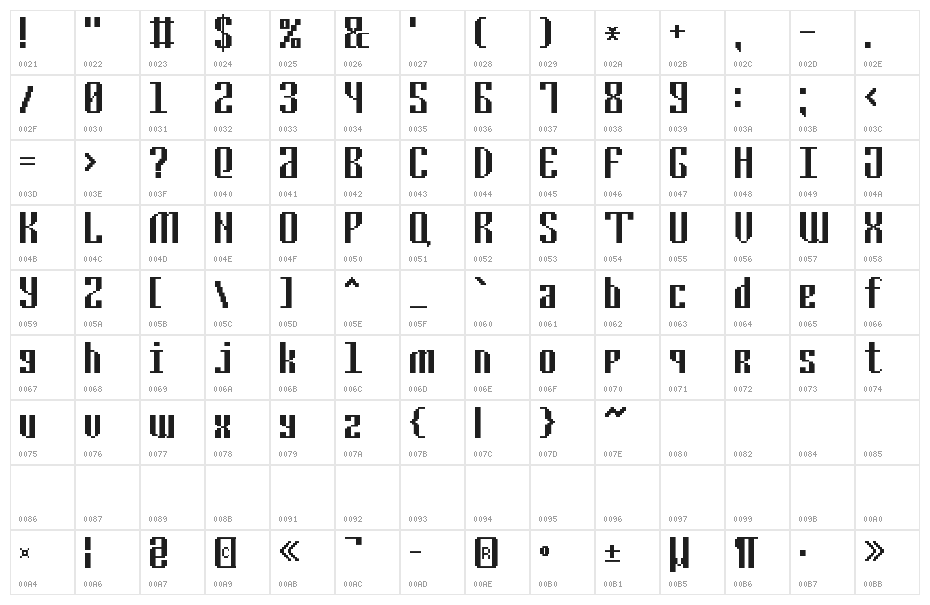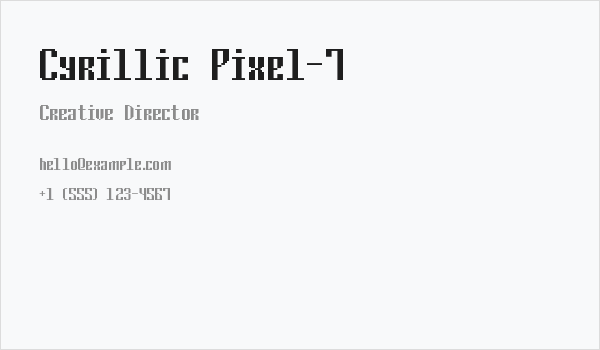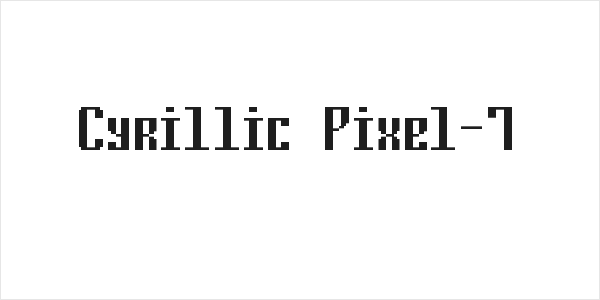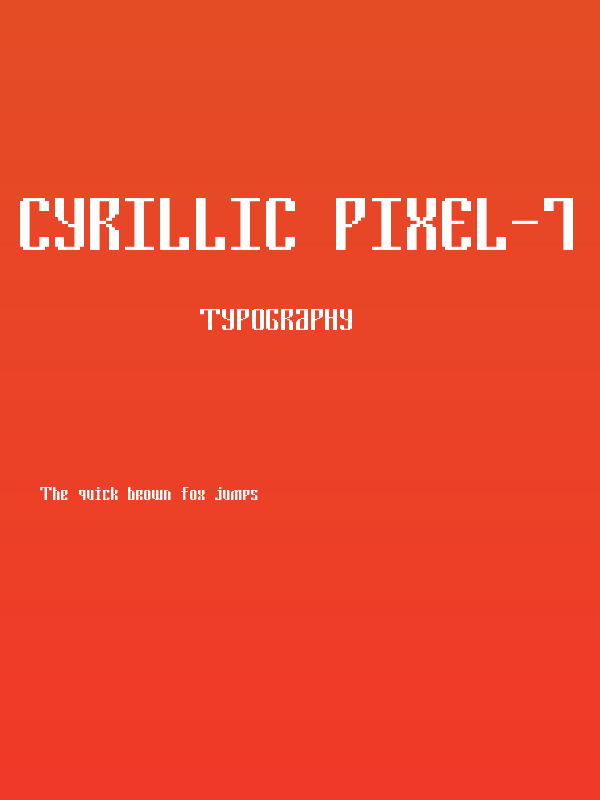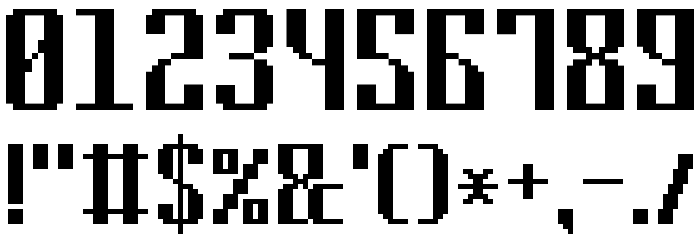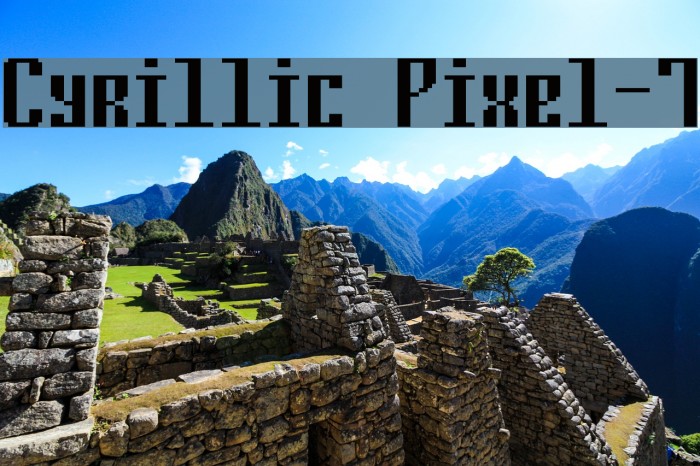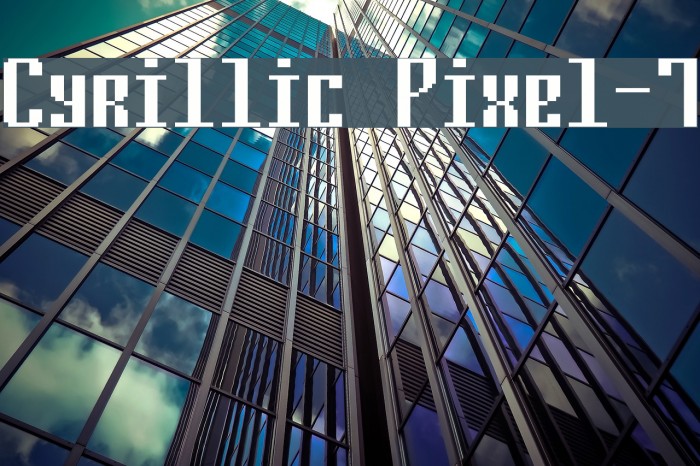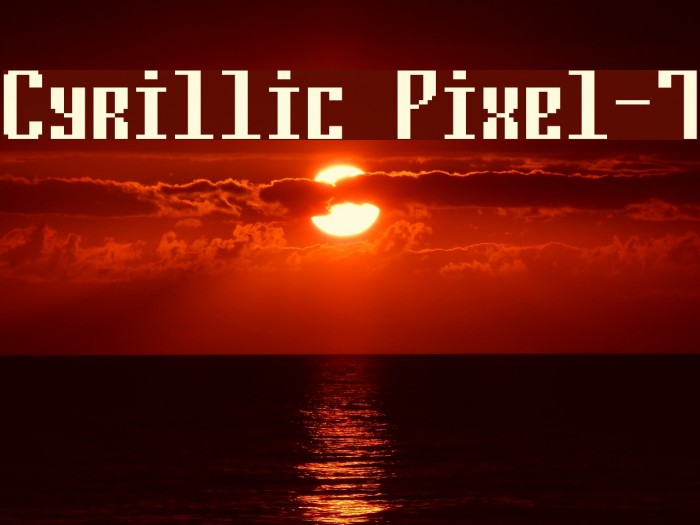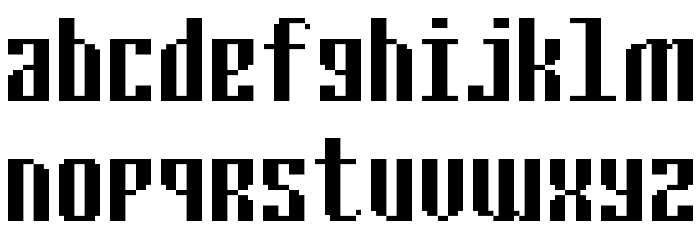
Cyrillic Pixel-7 Font
Cyrillic Pixel-7 Description
This font features a distinct pixelated style reminiscent of early digital displays and retro video games. Each character is constructed with a blocky, grid-like appearance, emphasizing a strong geometric form. The uppercase and lowercase letters maintain a consistent height, contributing to a uniform look. The numerals and special characters follow the same pixelated design, ensuring cohesion across all glyphs. The font's design is straightforward, with no curves or embellishments, making it ideal for projects that require a vintage or digital aesthetic.
| Use Case | Headlines, Logos, Digital Art |
| Proposed Projects | Ideal for retro video game graphics, digital art projects, and any design requiring a vintage digital aesthetic. |